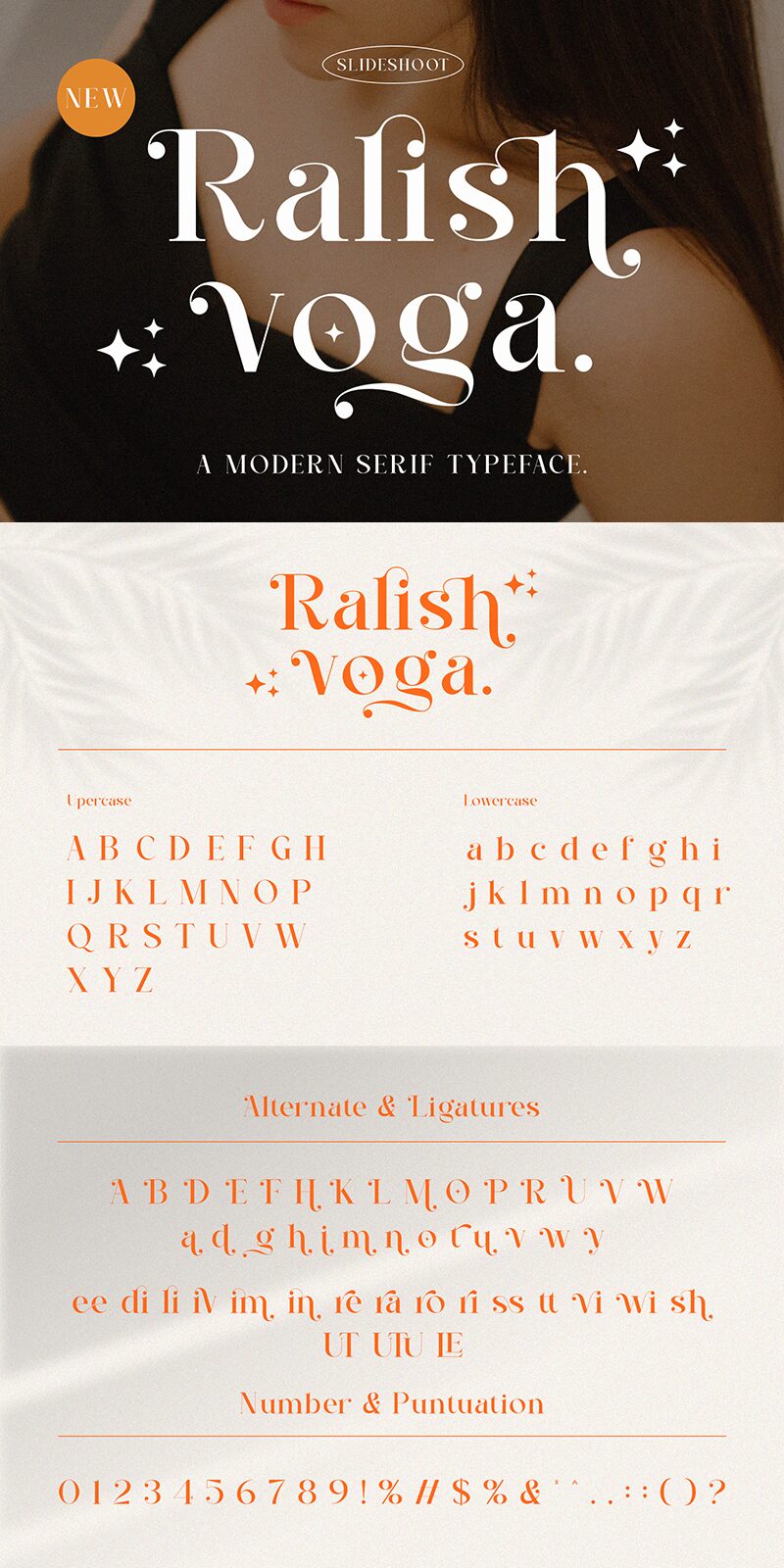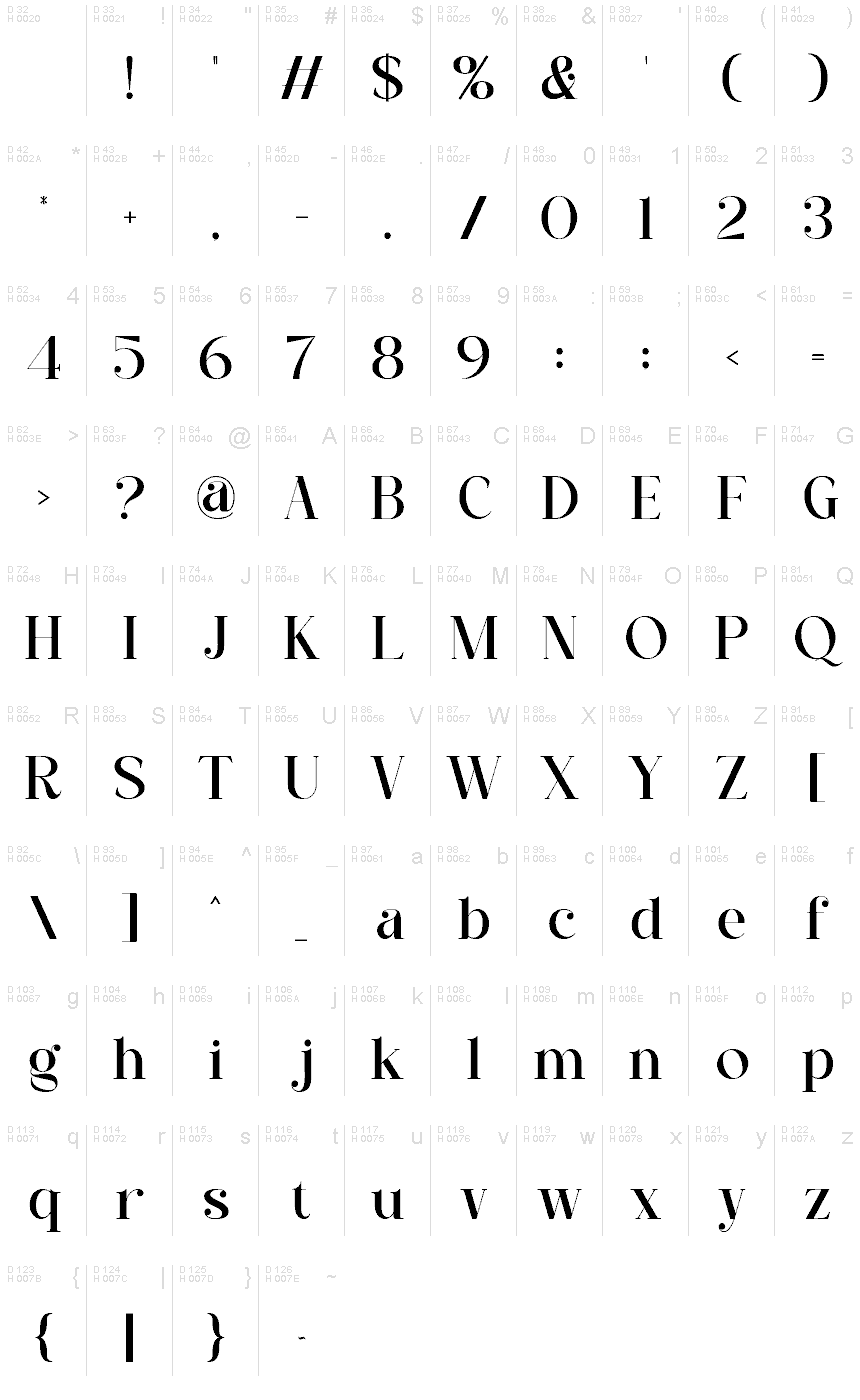
Ralish Voga
Ralish Voga font is a refined serif typeface designed by Ahmad Riqi with elegant appearances. The letters herein are fancy yet formal with beautiful classic aesthetics that make it an instant favorite among designers. Sophisticated, classy, and almost fancy, this font makes use of long curves to deliver its premium style.
Free and large, Ralish Voga can create spectacular posters for concerts, fashion events, art exhibitions, or even sales promotions. Additional application possibilities include album covers, book covers/pages (literal works or medical periodicals), graphic designs painted on jackets/shoes/tees for entertainment purposes as well as web logos.